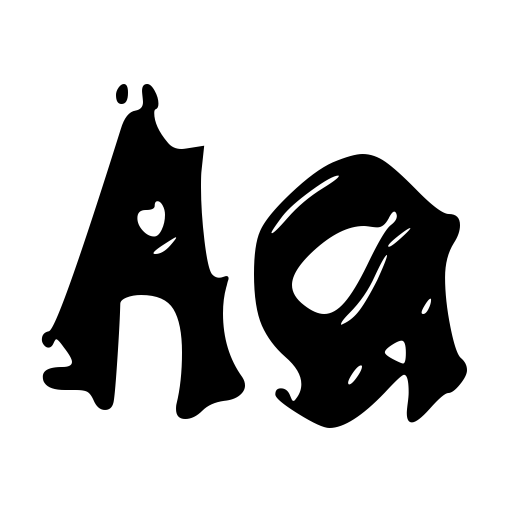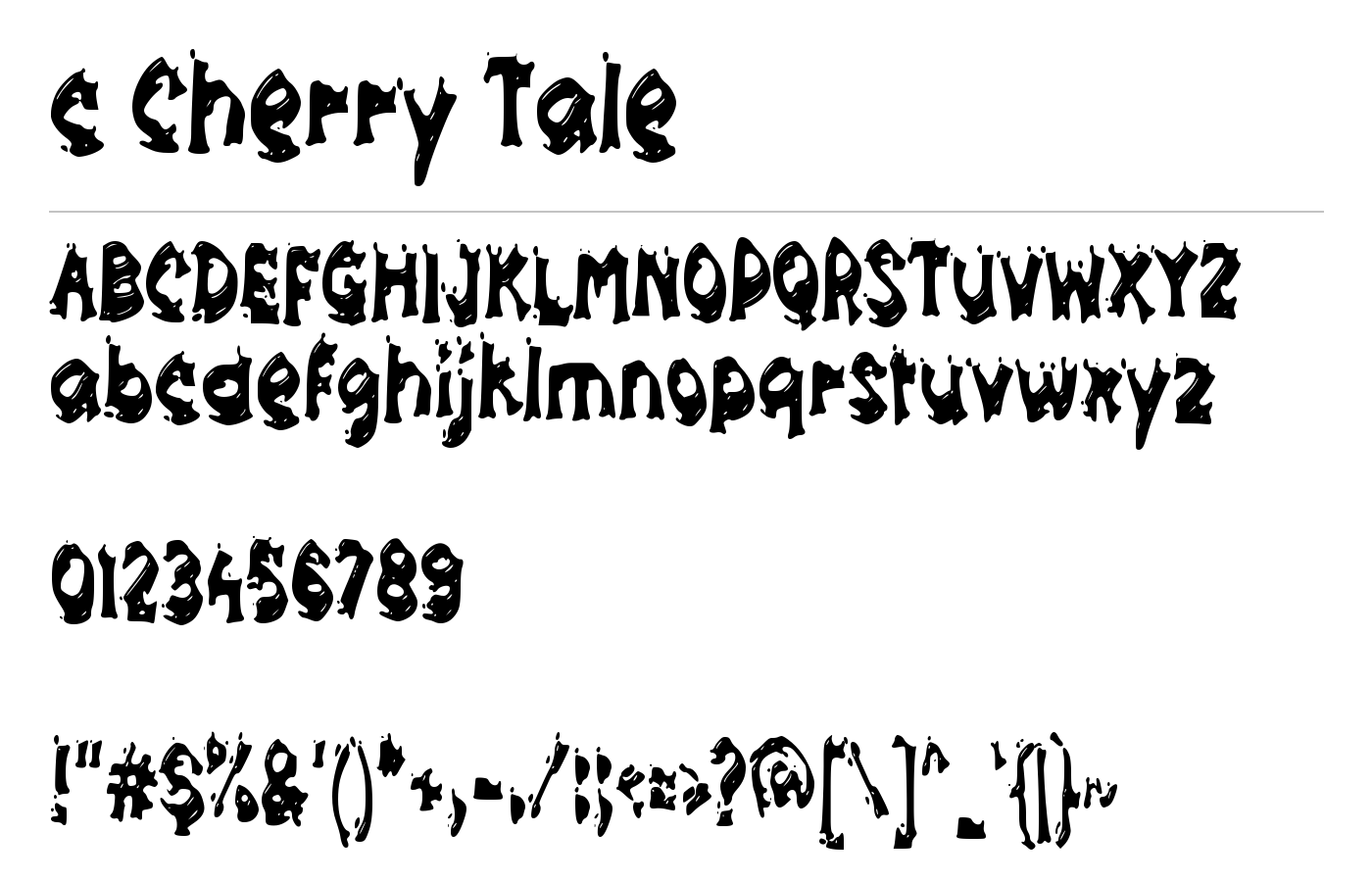
Cherry Tale is a bold, playful display font with a quirky, hand-drawn feel characterized by irregular shapes and splattered stroke details. Its uneven letterforms and strong presence make it perfect for projects needing a fun, energetic vibe, such as posters, kids' brands, or creative headlines. This font stands out with its lively personality, adding an artistic and informal touch to any design.
c Cherry Tale Font
About c Cherry Tale Font